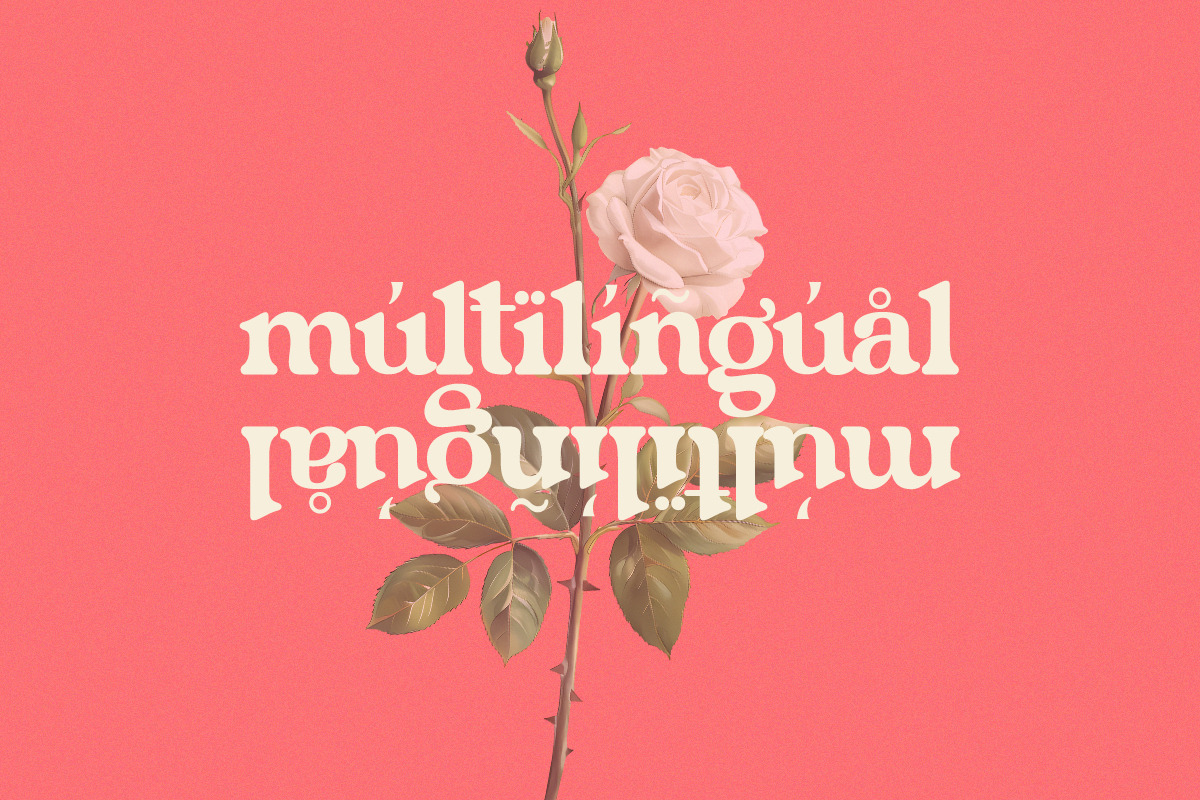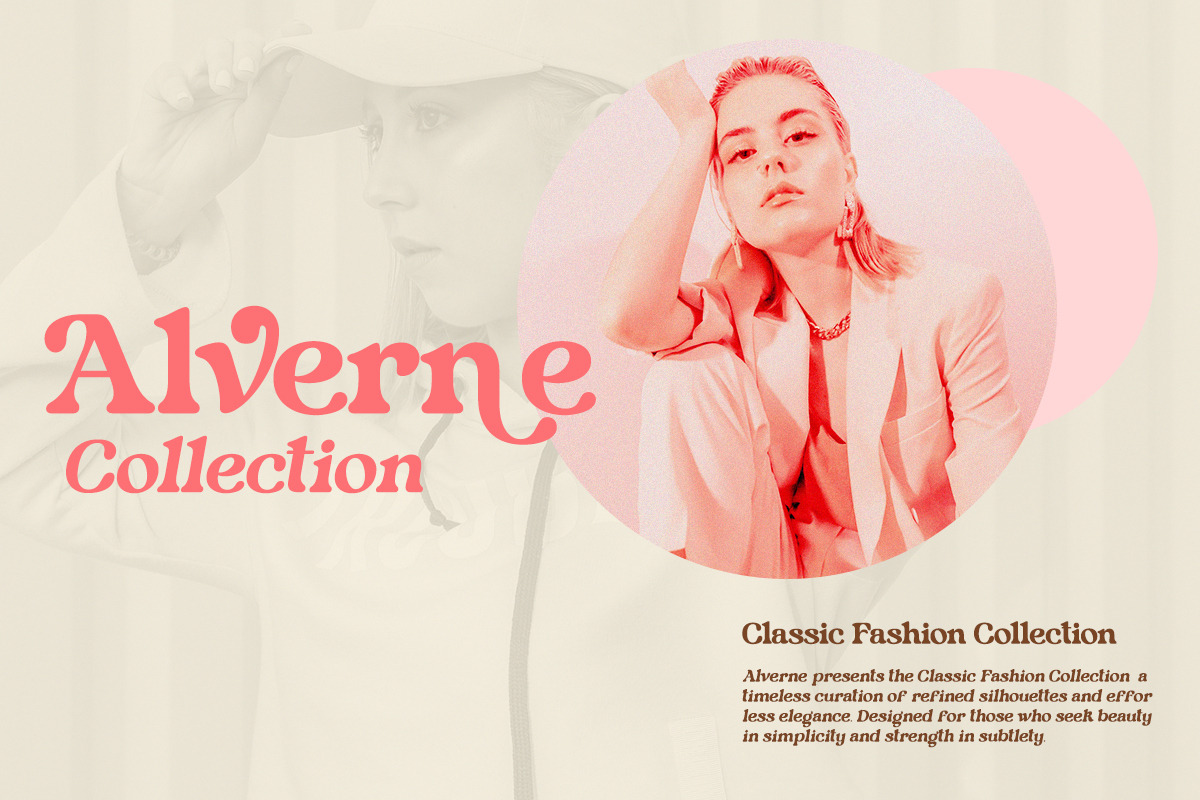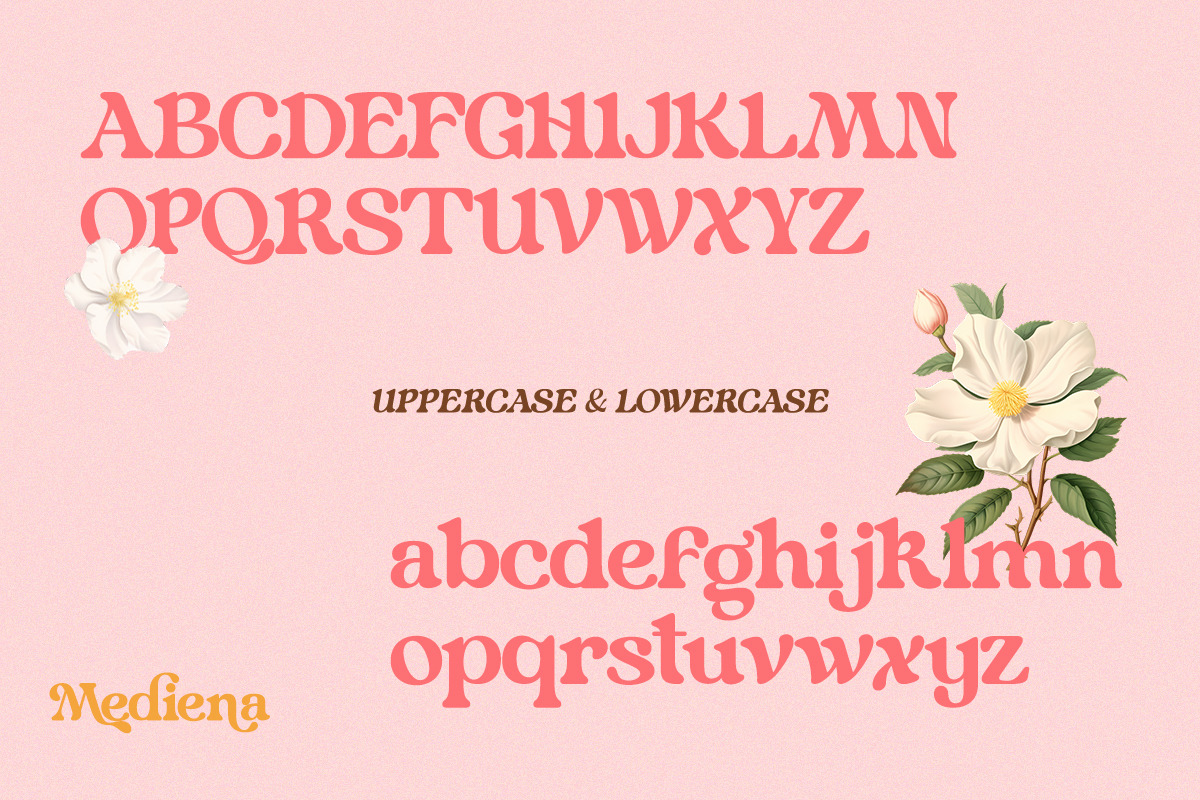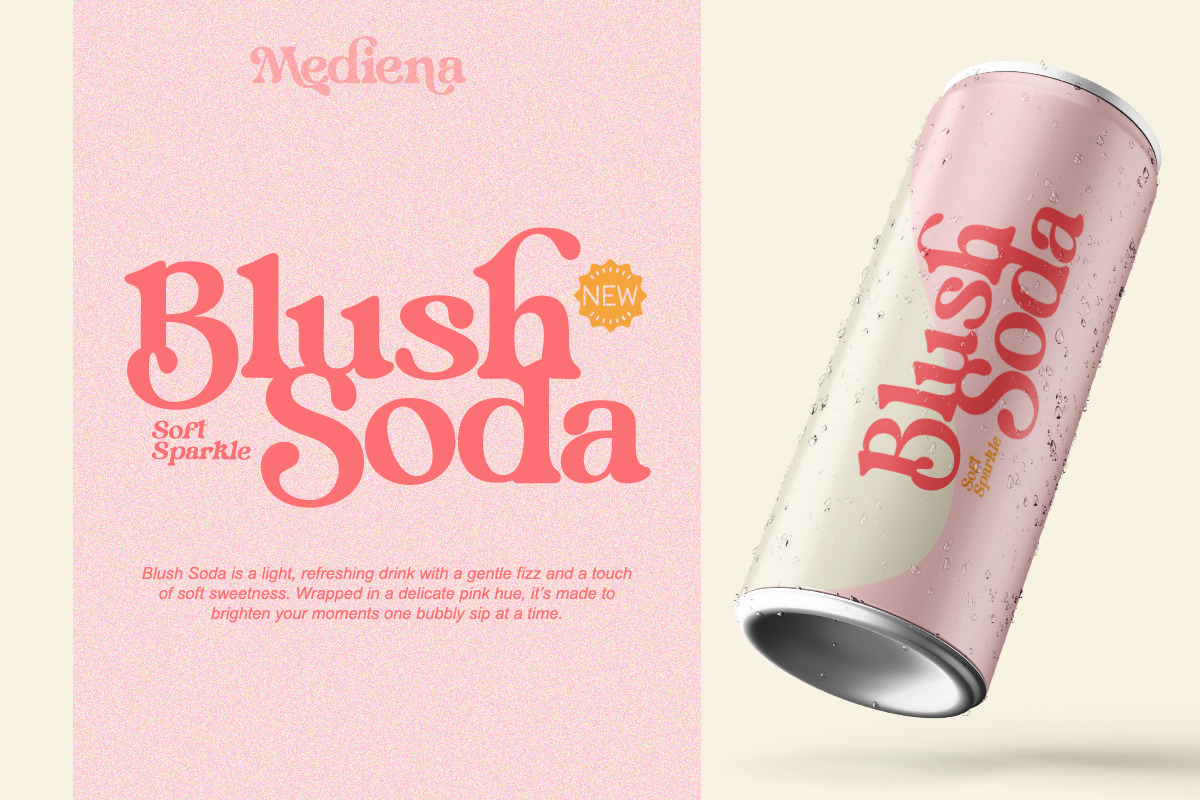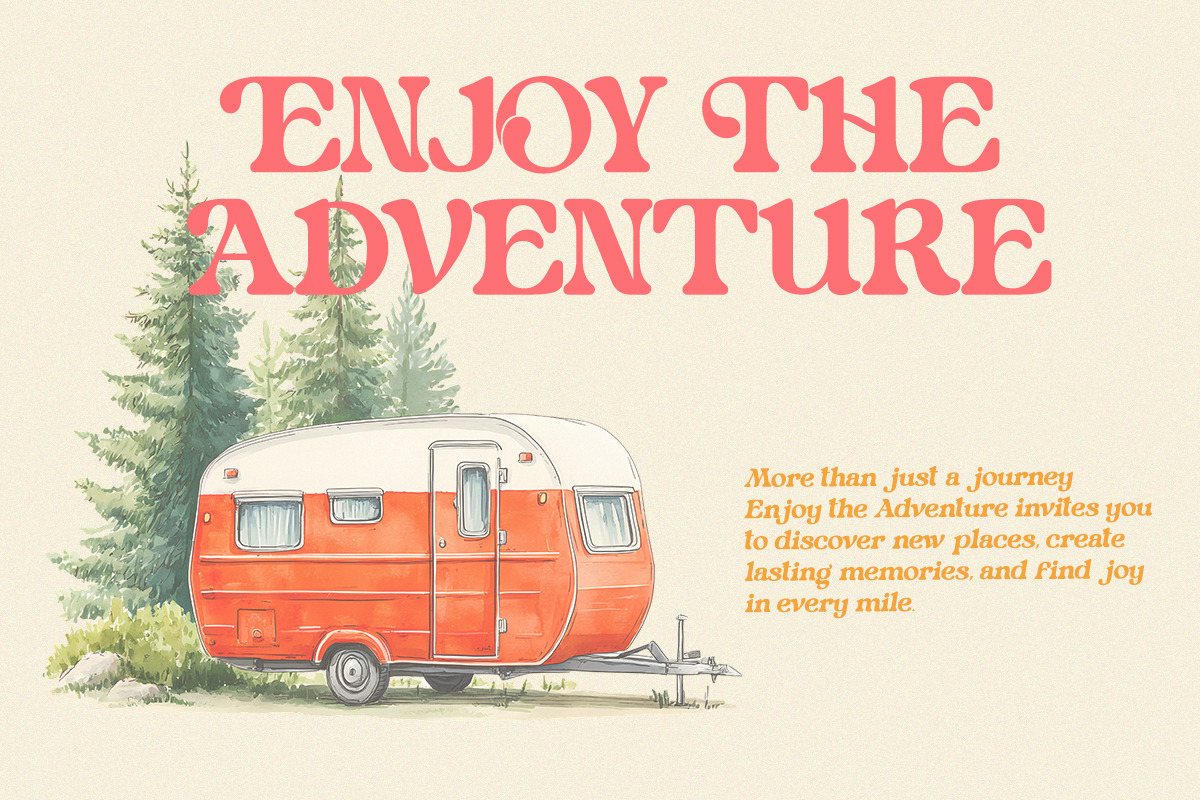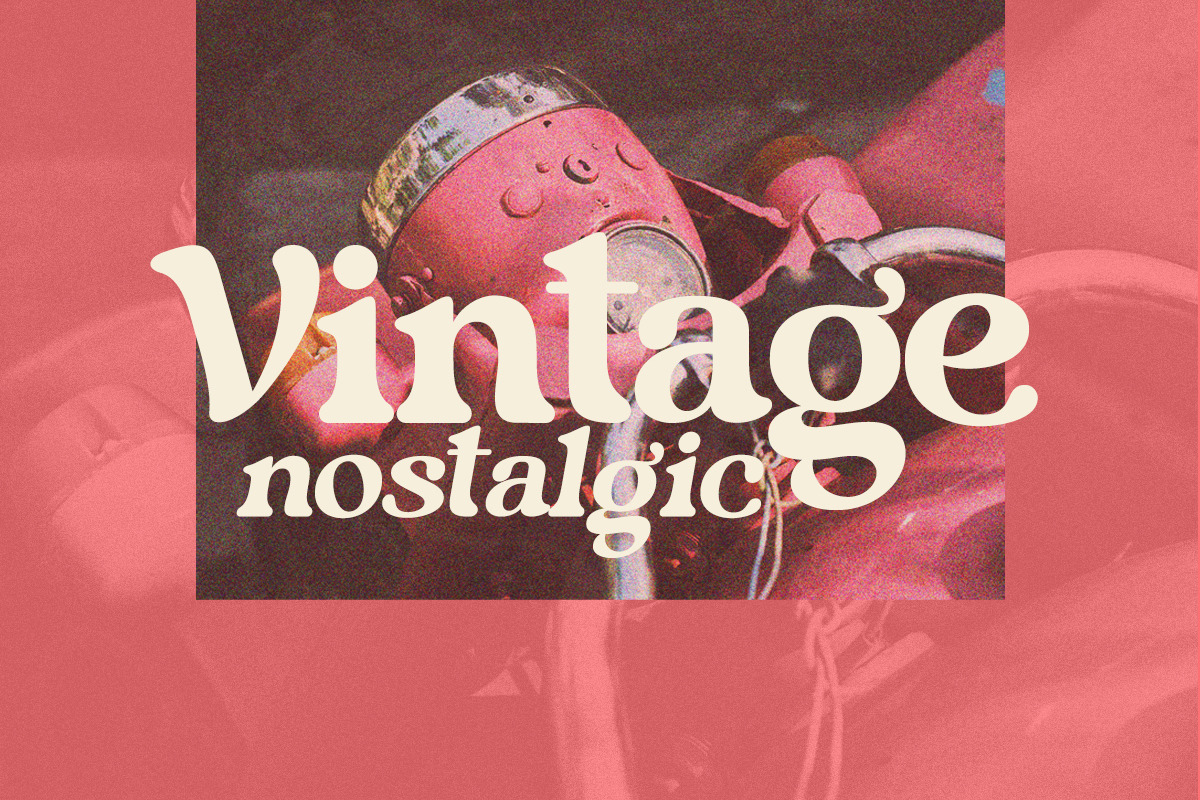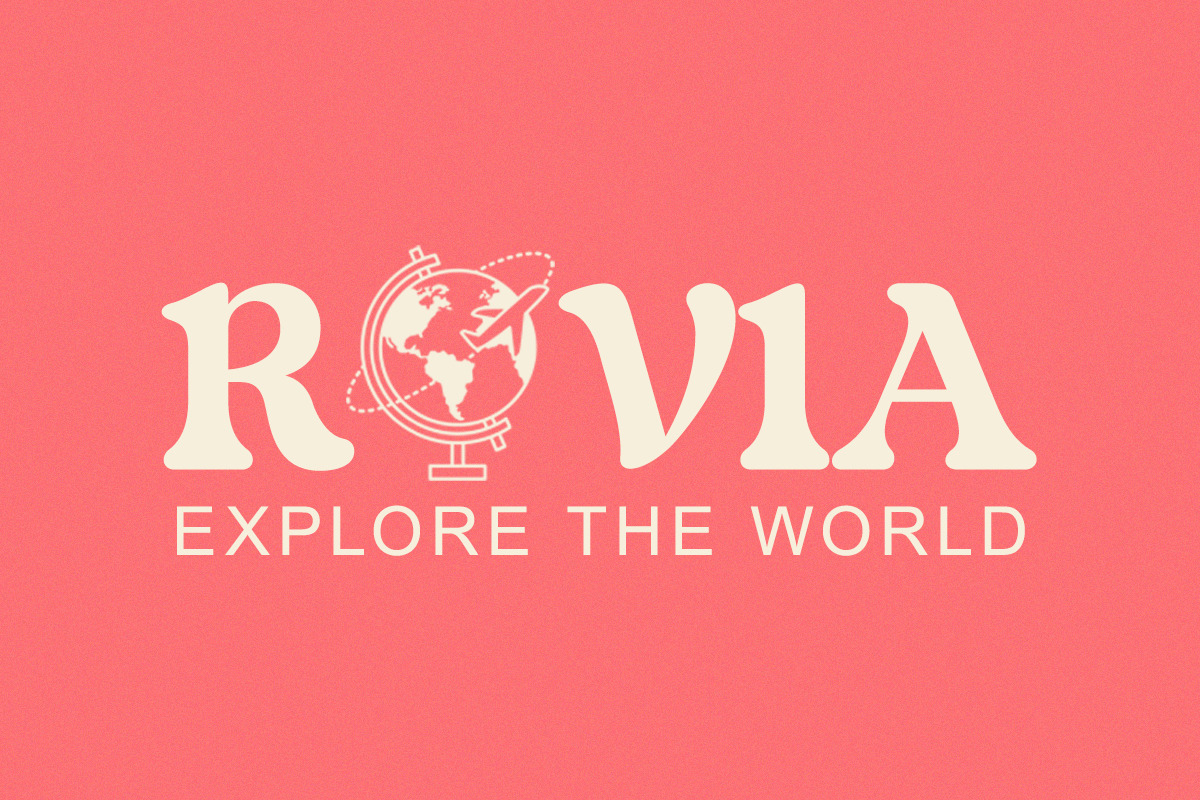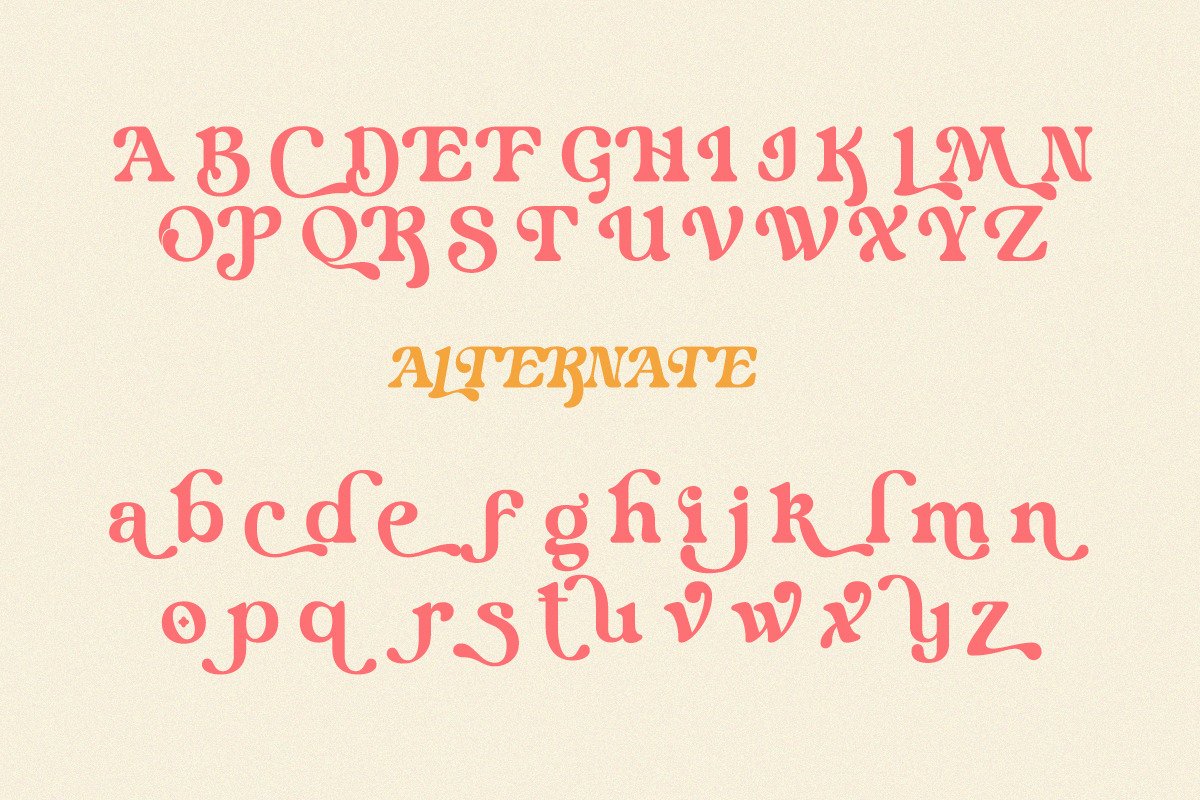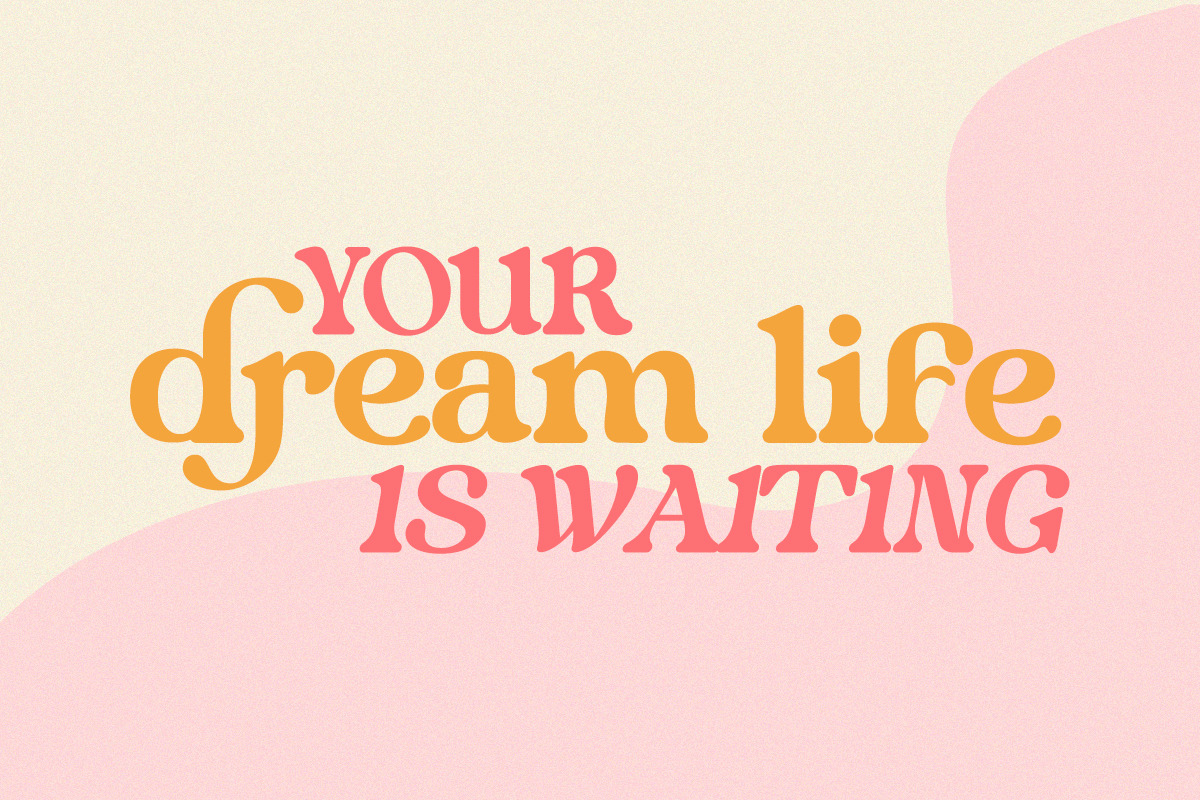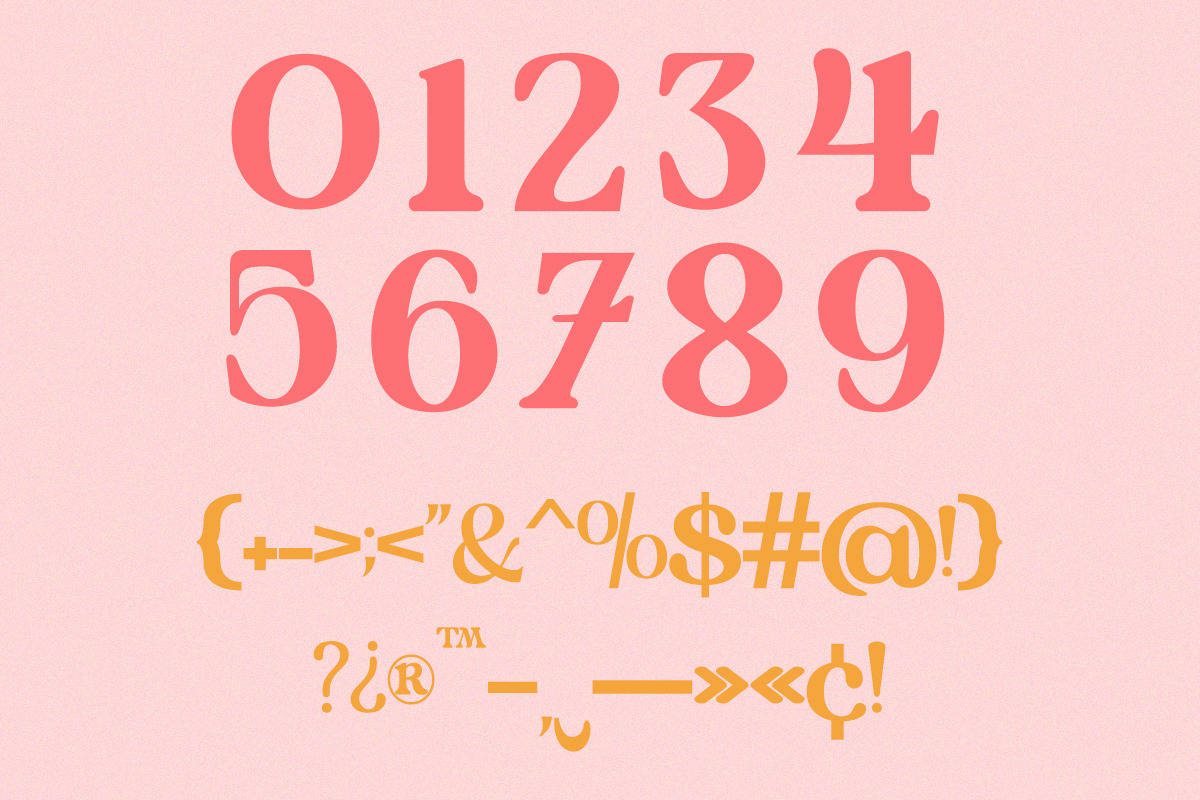
Mediena – Modern Retro Alternates
Mediena is a modern retro serif font with unique alternates and playful curves.
Blending vintage aesthetics with a contemporary twist, this typeface is perfect for branding, retro posters, album covers, logos, apparel design, and creative editorial layouts. Its bold presence, stylistic alternates, and multilingual support make Mediena a versatile choice for projects that want to stand out with nostalgic charm and modern elegance.
- Regular & Alternates style
- Retro-modern serif look
- Unique ligatures & playful curves
- Retro & vintage posters
- Logo & branding projects
- Music album covers
- Apparel & merchandise design
- Editorial magazines
- Packaging with nostalgic vibes
Bringing back retro vibes with modern elegance.